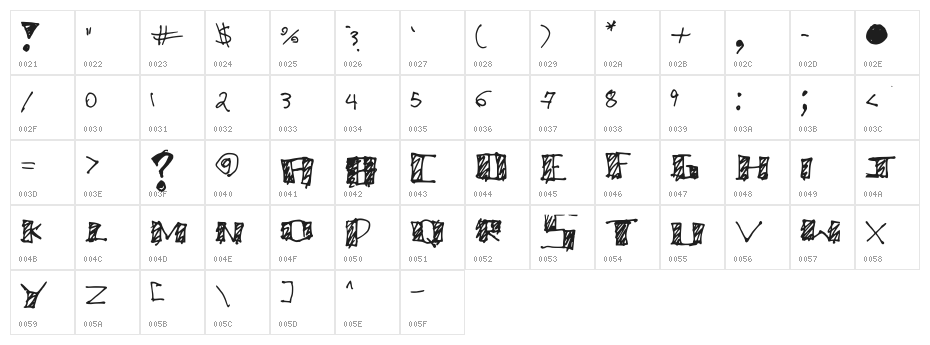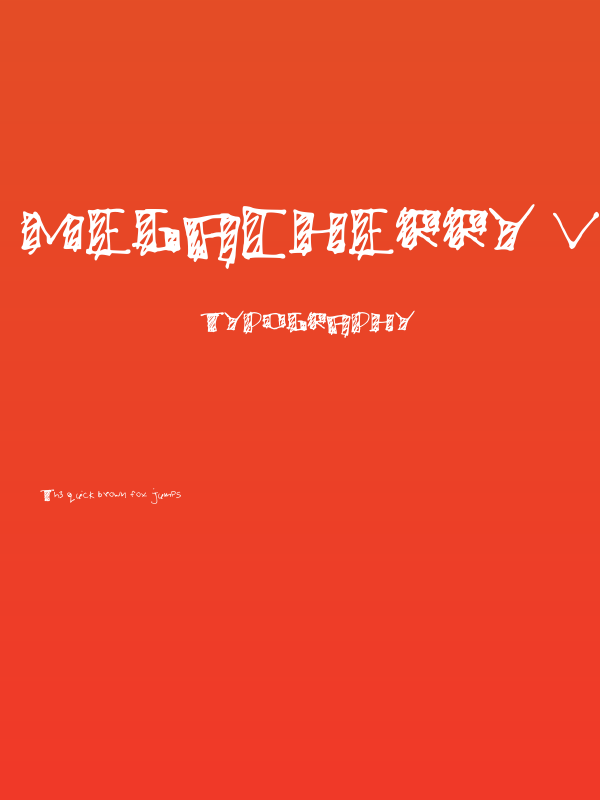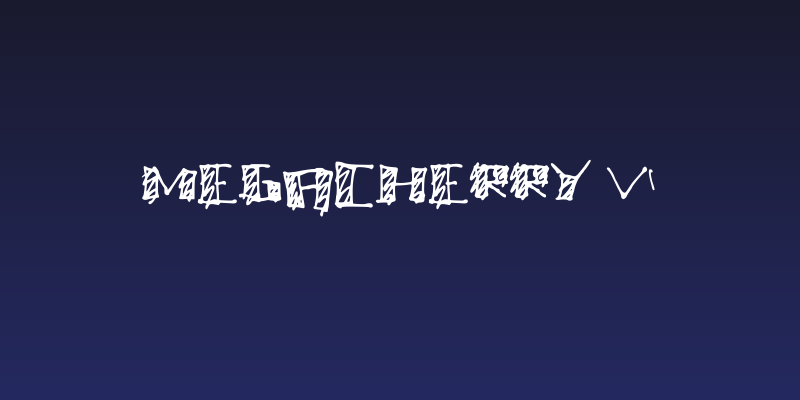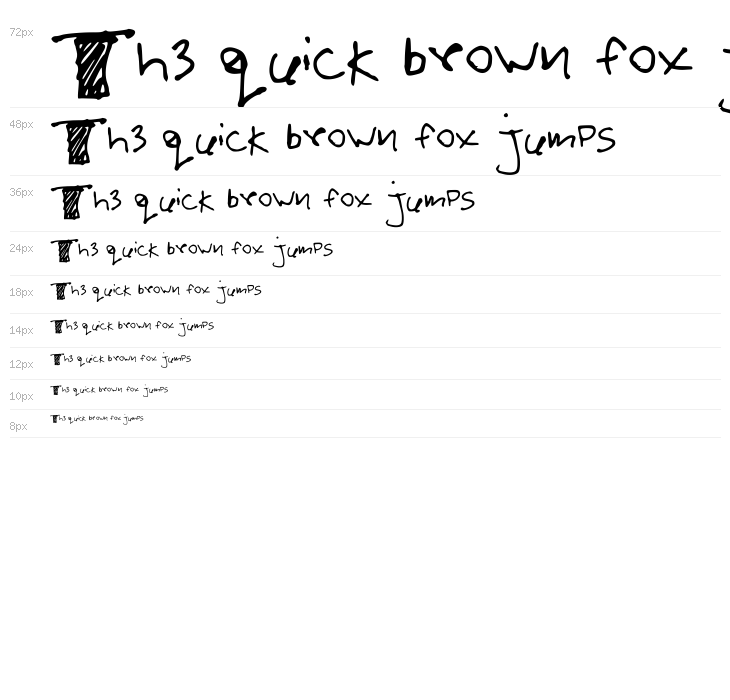
MegaCherry V1 Font
MegaCherry V1 Description
This font exhibits a highly expressive and artistic style, characterized by its sketch-like, hand-drawn appearance. The uppercase letters are bold and irregular, with a rough, textured look that suggests a sense of spontaneity and creativity. The lowercase letters maintain a similar hand-drawn quality, offering a more fluid and casual feel. The numerals and special characters continue this theme, providing a cohesive and playful aesthetic. This font's unique style makes it stand out, ideal for projects that require a personal, artistic touch.
| Overall Style | Artistic, Hand-drawn |
| Use Case | Logos, Posters, Creative Branding |
| Proposed Projects | Ideal for art projects, creative branding, posters, and any design that benefits from a personal, handcrafted touch. |